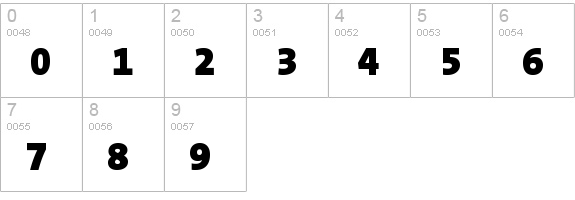
TheMix Black Expert Font Details
TheMix Black Expert is a maximum-weight, dramatic variant in the TheMix typeface family \xE2\x80\x94 well suited to maximum-impact headlines, posters, and packaging.
TheMix Black Expert font is a stunning typeface that exudes elegance and sophistication. Its bold and commanding appearance makes it perfect for headlines, titles, and any design project that requires a strong visual impact. With its sharp edges and clean lines, TheMix Black Expert font embodies a sense of professionalism and authority. It effortlessly captures attention and demands to be noticed. Whether used in print or digital media, this font brings a sense of power and confidence to any design. What makes TheMix Black Expert font even more appealing is that it is freely available to download at FontsMarket.com. This means that designers and creatives can easily access this exceptional font without any cost. It offers an incredible opportunity to enhance your designs without breaking the bank. The versatility of TheMix Black Expert font is another standout feature. It adapts well to various design styles and can be paired with other fonts to create intriguing typographic compositions. It adds a touch of sophistication to logos, branding materials, advertisements, and editorial designs, elevating them to a whole new level. Furthermore, TheMix Black Expert font's legibility is exceptional, ensuring that your message is conveyed clearly and effectively. Its well-defined characters and balanced spacing make reading effortless, even in smaller sizes or challenging backgrounds. In conclusion, TheMix Black Expert font is a visually striking typeface that combines elegance and power. Its freely available download at FontsMarket.com makes it an invaluable resource for designers seeking to create impactful designs without compromising on quality. Embrace the boldness and professionalism of TheMix Black Expert font and take your design projects to new heights.